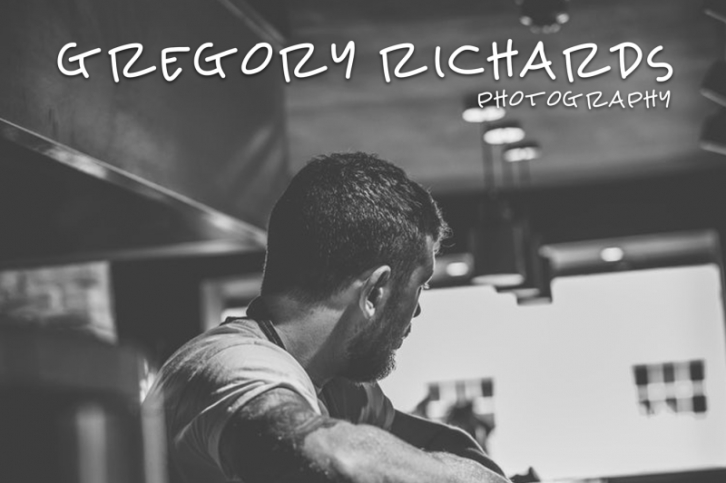
Cozy is a handwritten display font - with a masculine feel.
This font is perfect for quotes, headings, blog titles, logos, brandings, invitations and more!